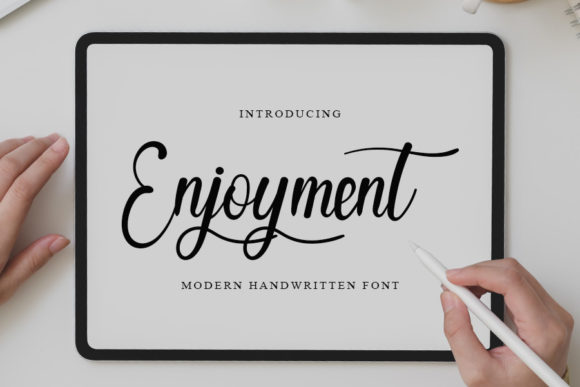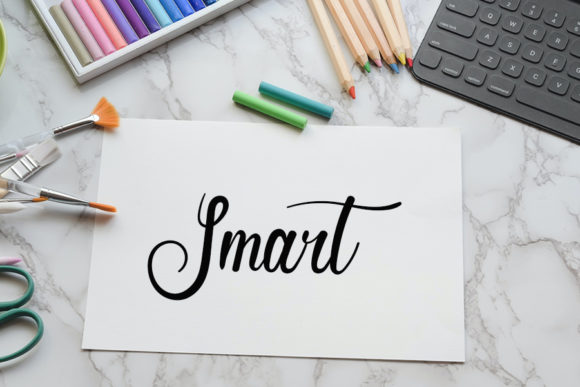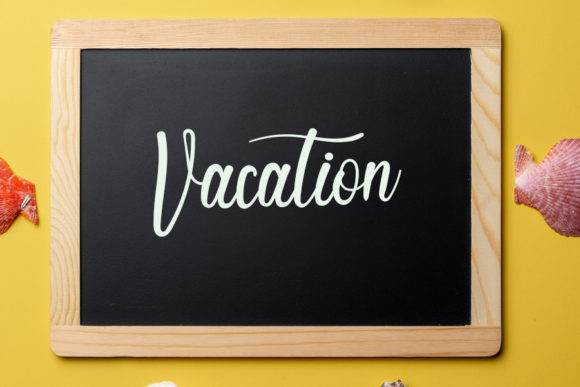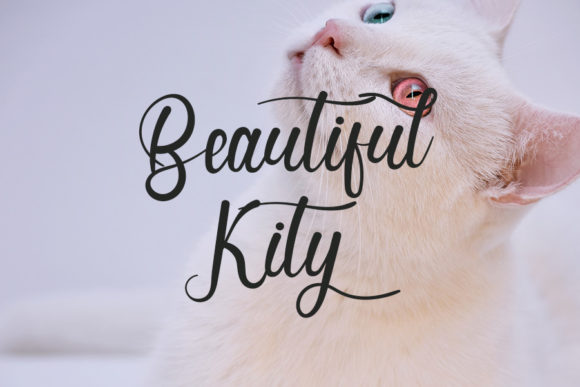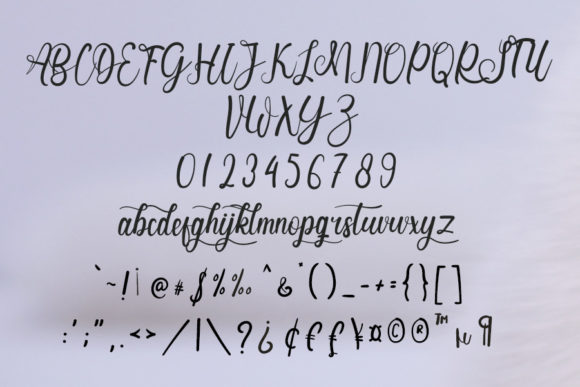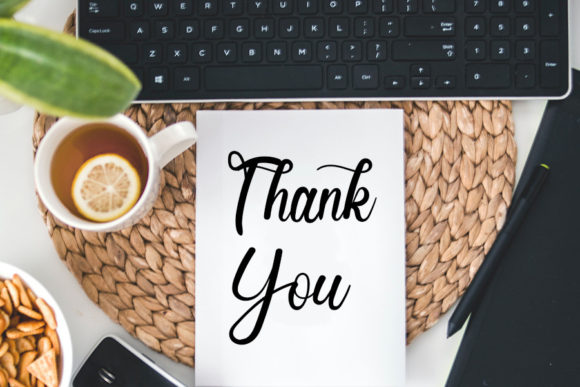
Enjoyment Font
About Enjoyment Font
Enjoyment is a cool handwritten font with a modern vibe and spotless form, inspired by a classic calligraphy. Not too thin and not too thick, balanced and varied, this font was designed to enhance the beauty of your projects.